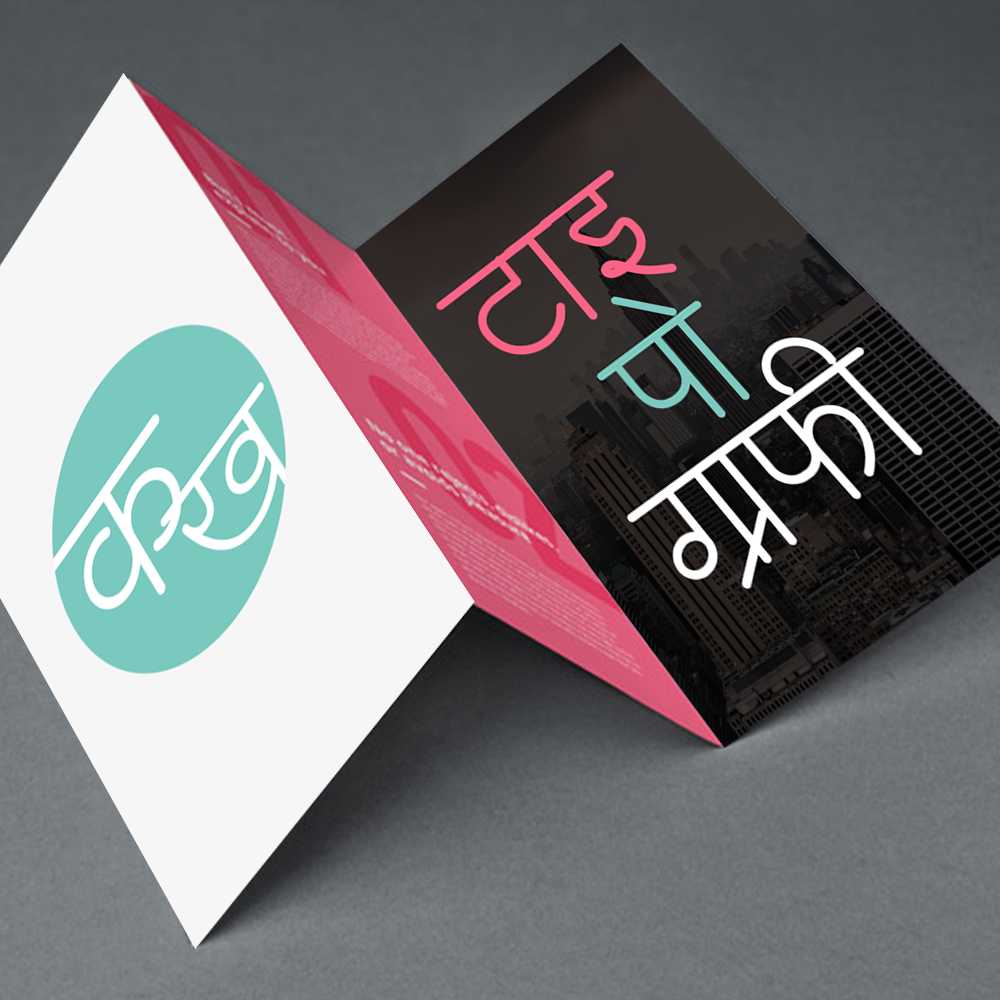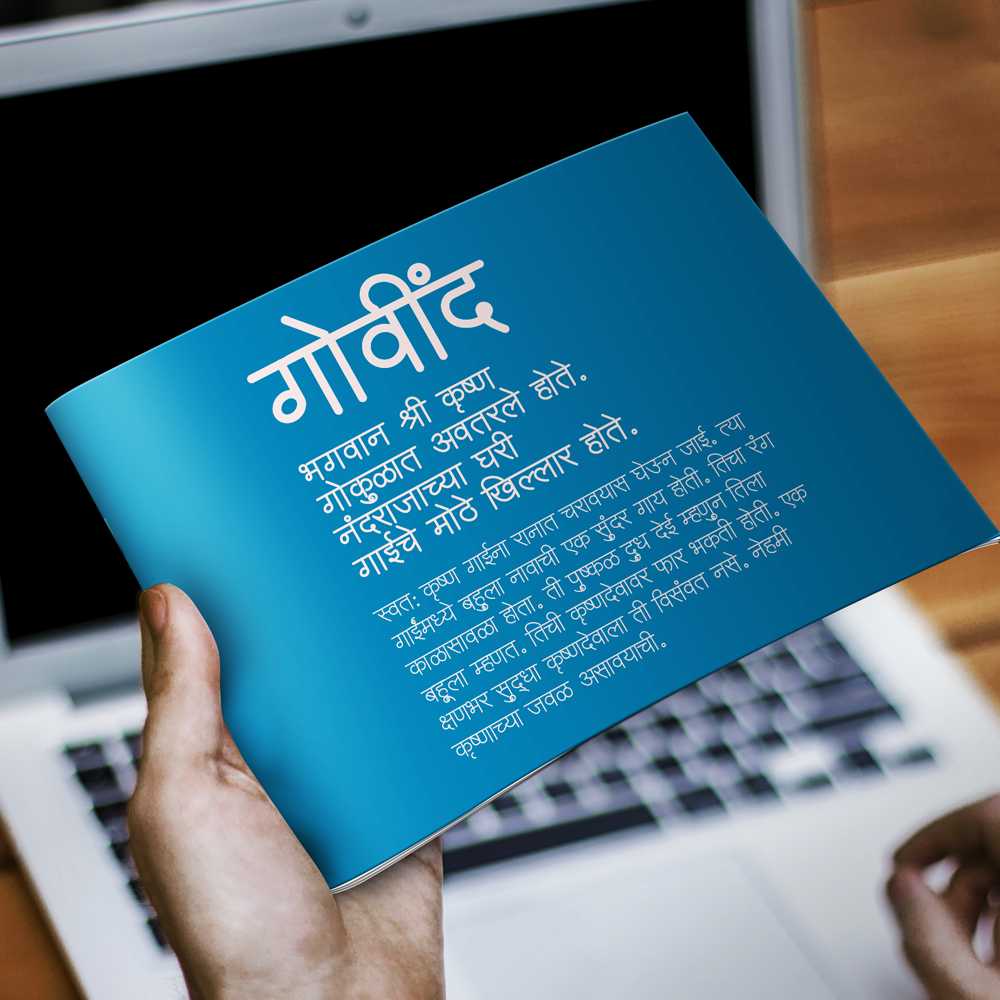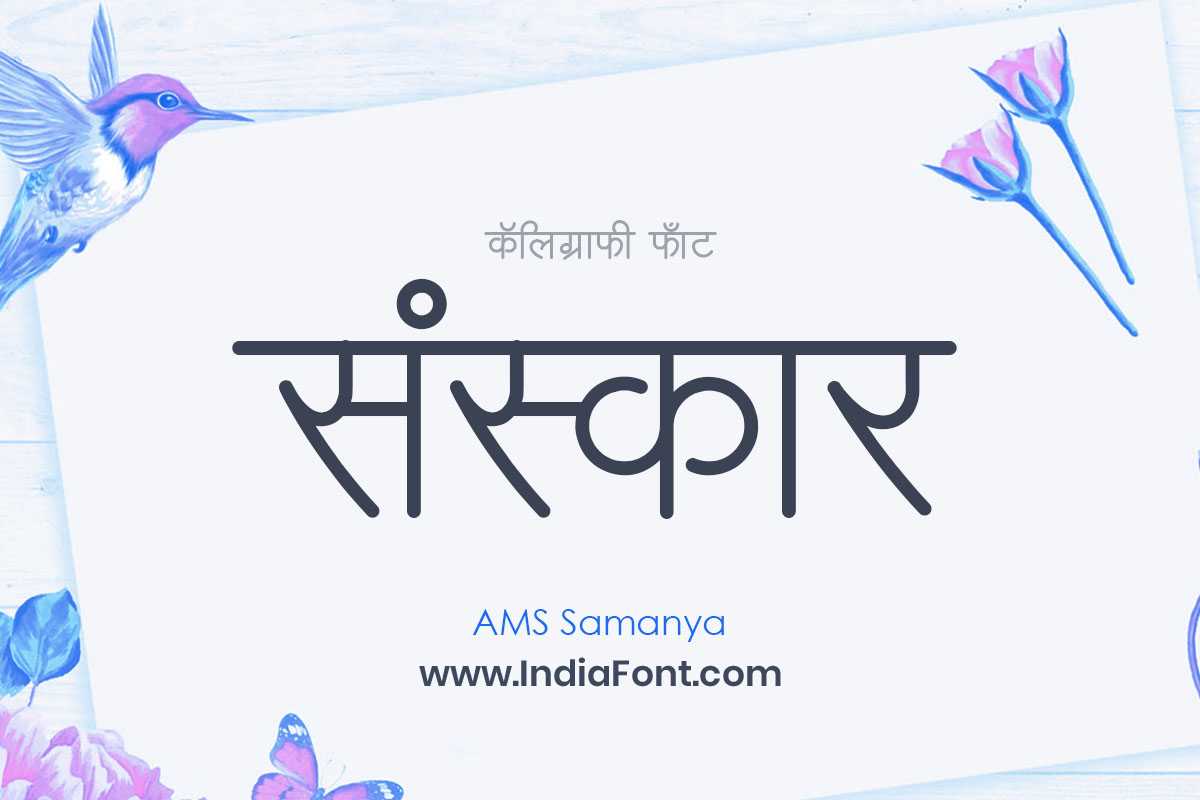
AMS Samanya
Enhance the readability and professionalism of your publications with AMS Samanya, a font designed for clear communication. Whether you're seeking stylish Hindi fonts, publication fonts that offer legibility, or fonts available for free font download, AMS Samanya ensures your content shines.
About AMS Samanya Font
Enhance the readability and professionalism of your publications with AMS Samanya, a font designed for clear communication. Whether you're seeking stylish Hindi fonts, publication fonts that offer legibility, or fonts available for free font download, AMS Samanya ensures your content shines. This publication font combines elegance with functionality, making it perfect for various design applications.
AMS Samanya is a professionally crafted publication typeface that brings clarity and style to your projects. Designed with attention to detail, it supports hindi and marathi characters flawlessly.
Whether you're working on wedding-materials, invitations, headers-titles, or other creative projects, AMS Samanya delivers consistent performance across both digital and print media. This carefully designed typeface ensures readability and visual appeal in all your design work.
AMS Samanya excels in various design scenarios. Here are the most suitable applications:
About AMS Samanya Typography Style
AMS Samanya is a professionally crafted publication font that exemplifies modern Hindi typography design. This free font is perfect for designers seeking professional branding and logo design projects.
Available in 1 weight and supporting hindi, marathi scripts, AMS Samanya offers exceptional versatility for both digital and print media. Whether you're working on wedding-materials, invitations, headers-titles, this carefully designed typeface ensures consistent quality and professional results across all your typography projects.